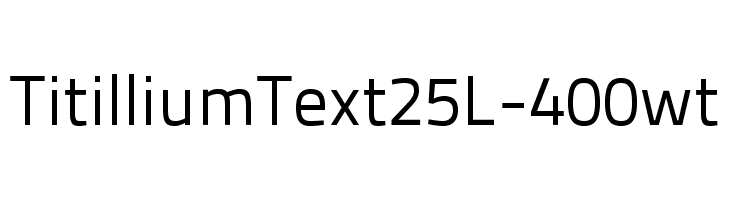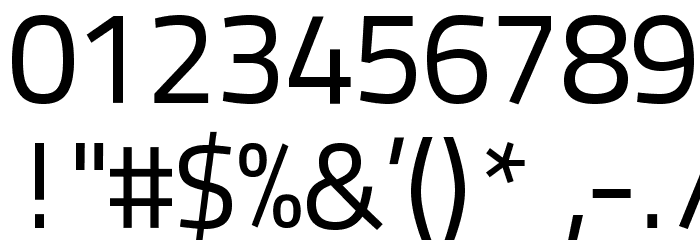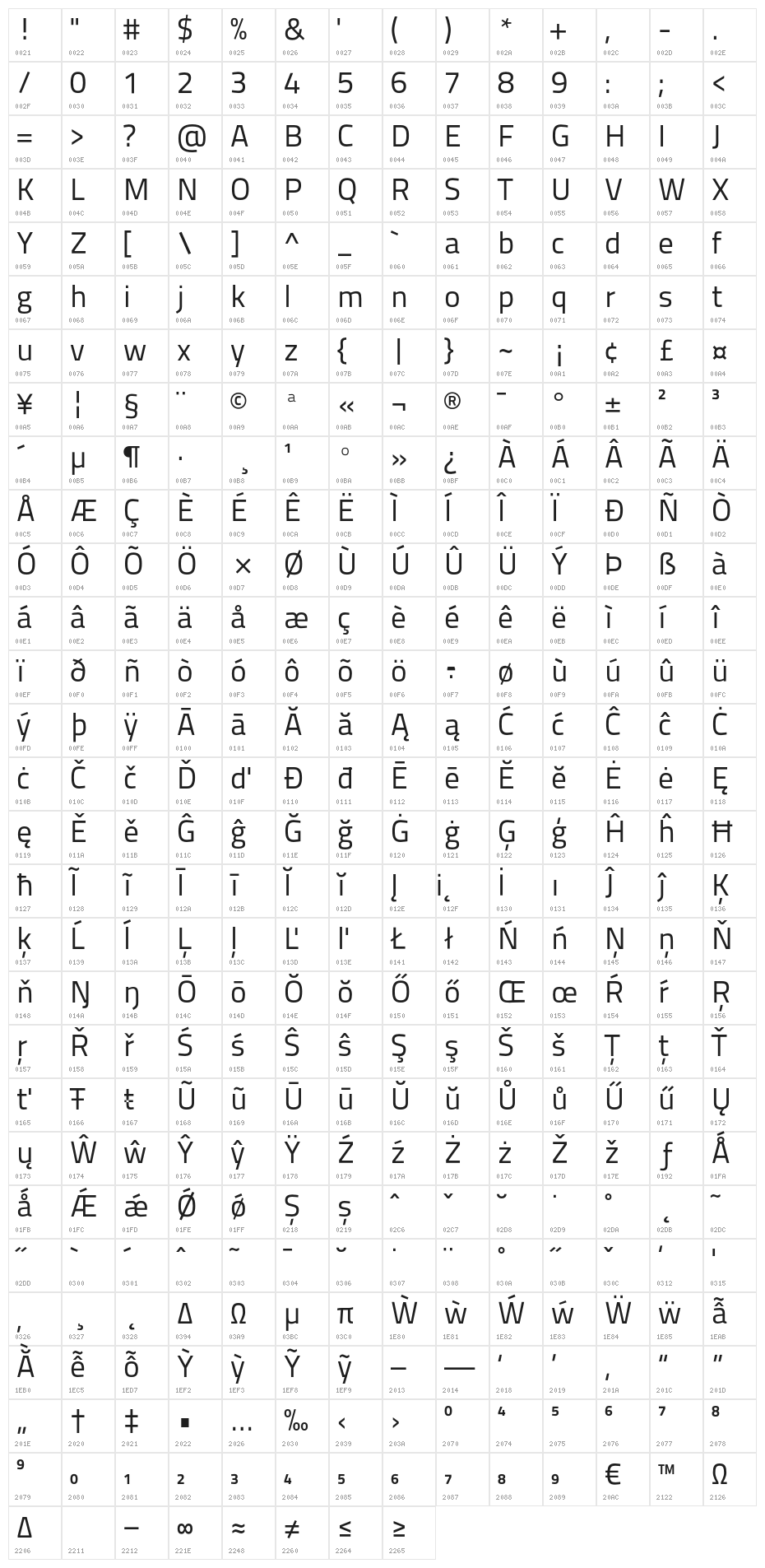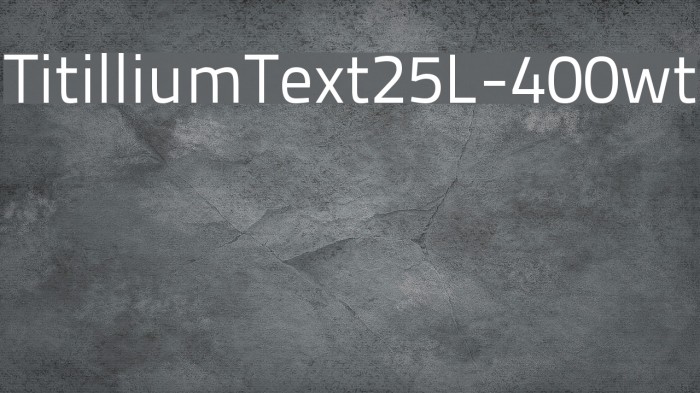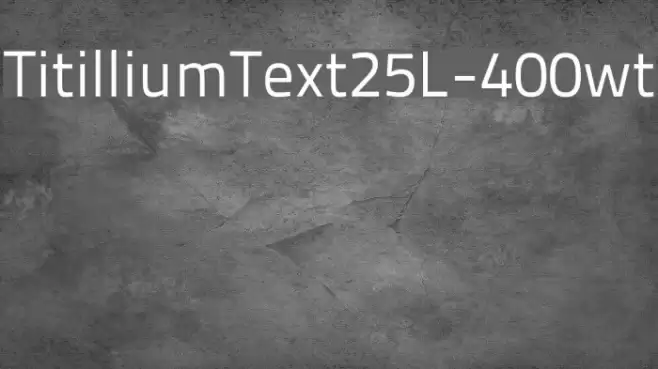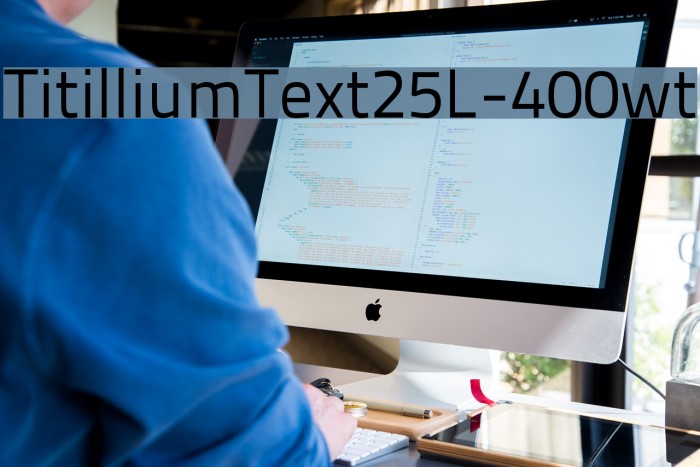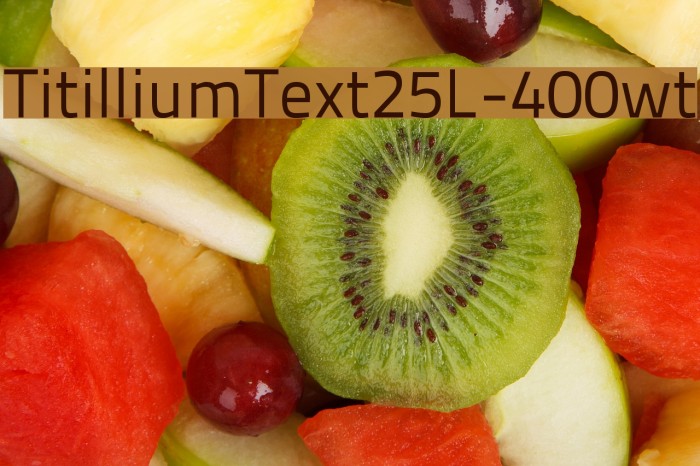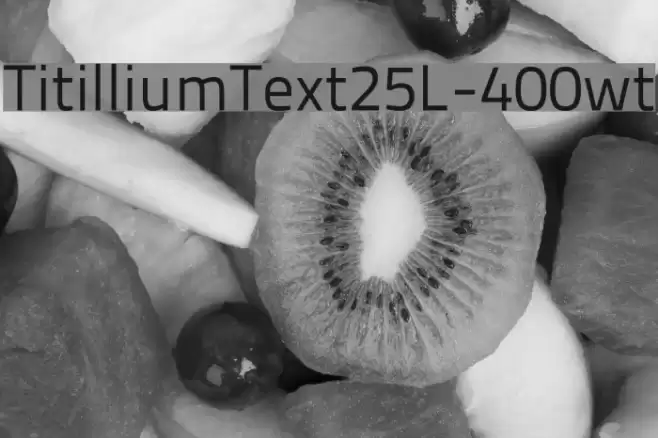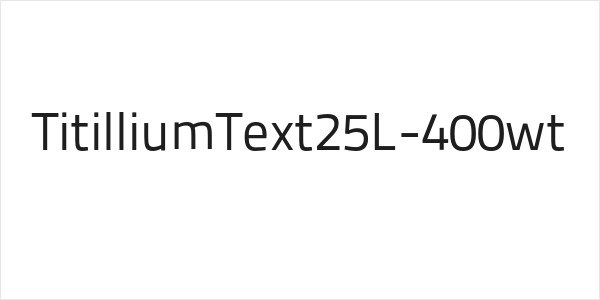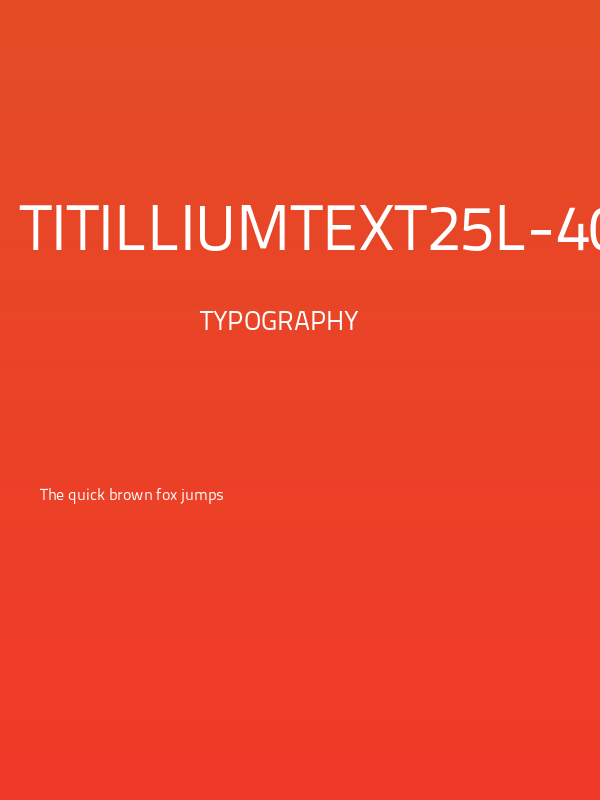
TitilliumText25L-400wt Font
TitilliumText25L-400wt Description
This font exhibits a clean and modern sans-serif style with a geometric structure. The characters are well-balanced, featuring uniform stroke widths that contribute to a harmonious appearance. The uppercase letters are slightly taller than the lowercase, providing a clear distinction between the two. The numerals are proportional, aligning well with the overall design. Special characters are designed with the same attention to detail, ensuring consistency across all glyphs. The font's simplicity and clarity make it highly legible, suitable for a variety of applications.
| Proposed Projects | Ideal for digital interfaces, corporate branding, editorial design, and signage due to its clarity and modern aesthetic. |